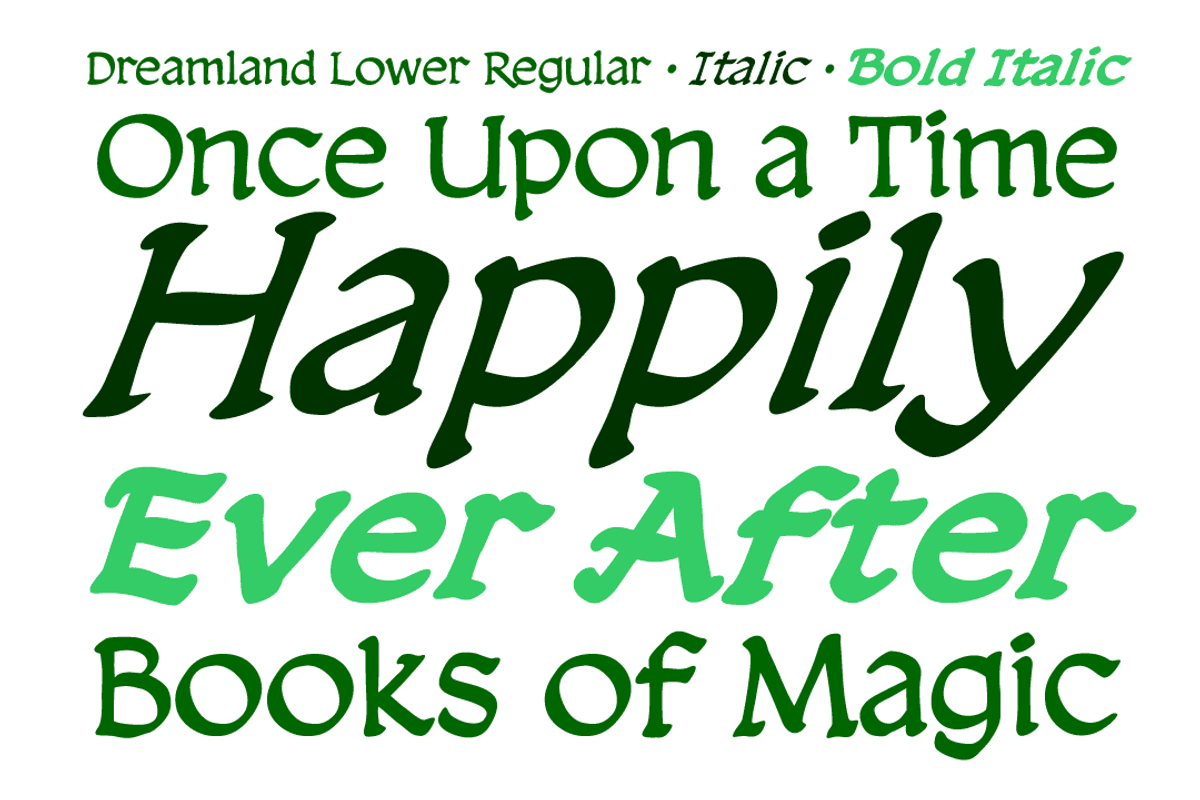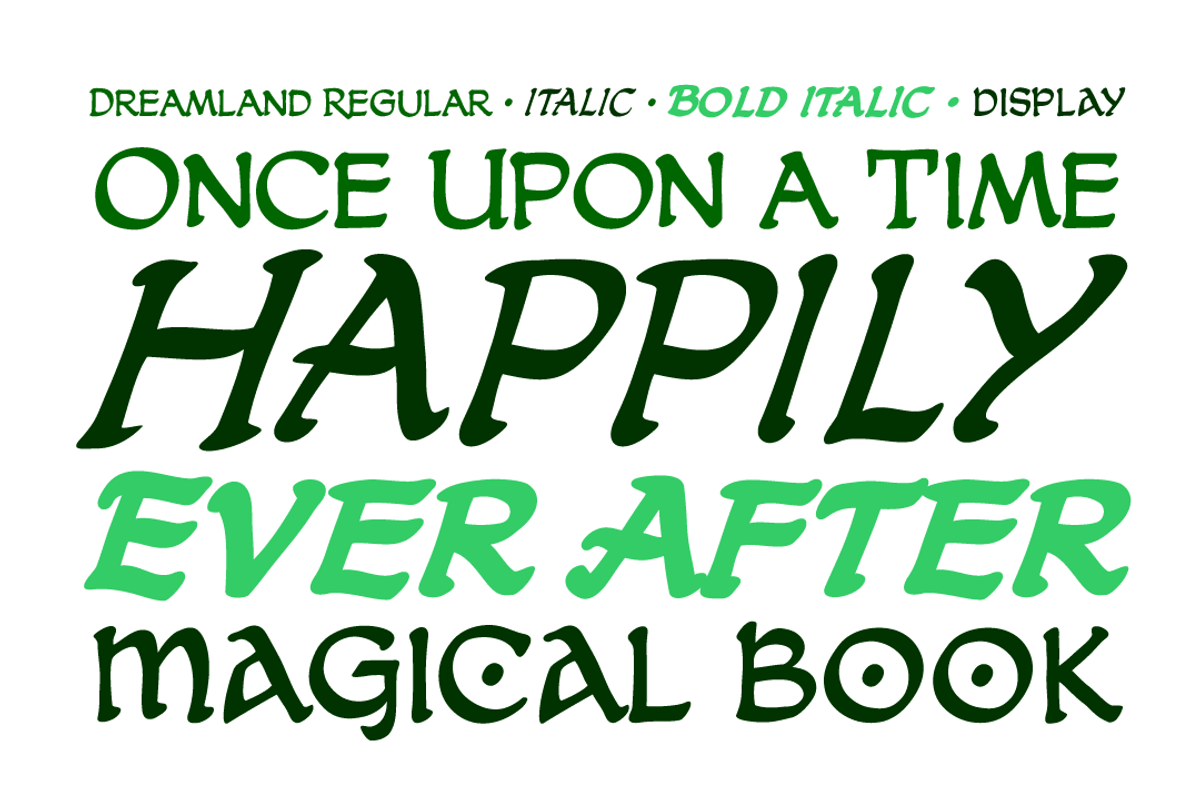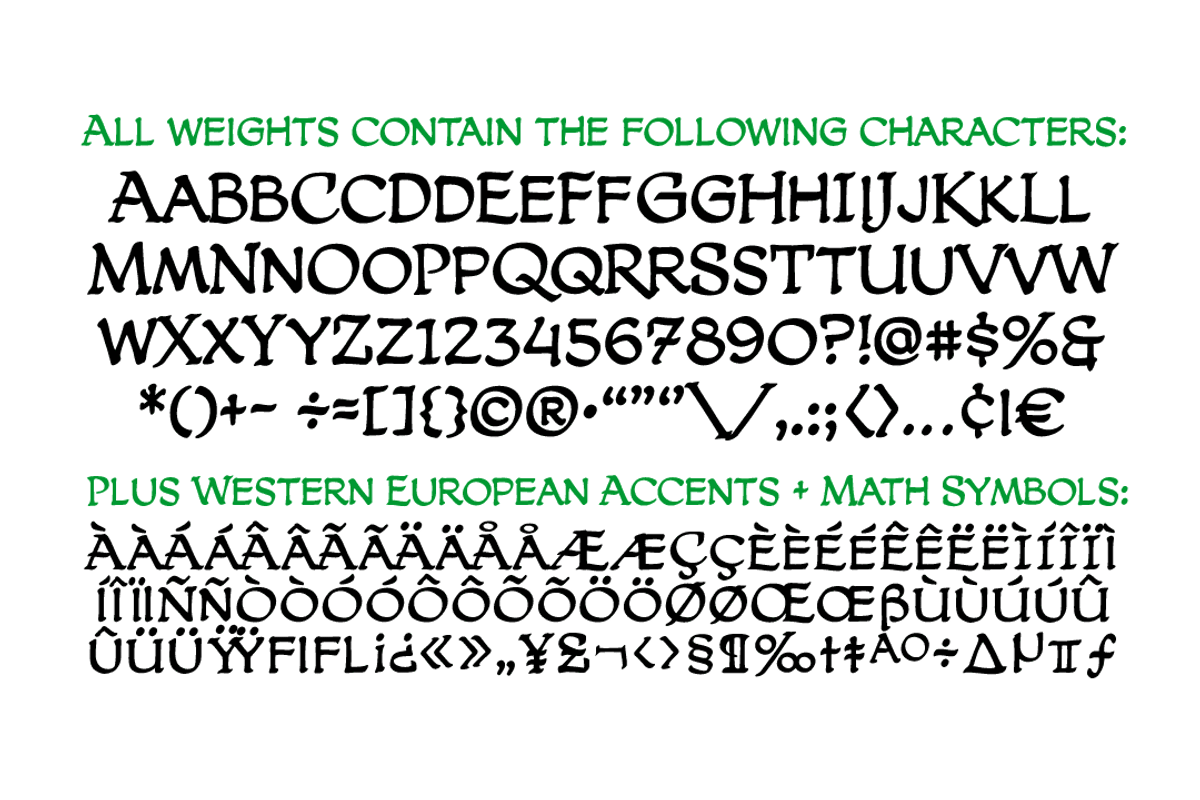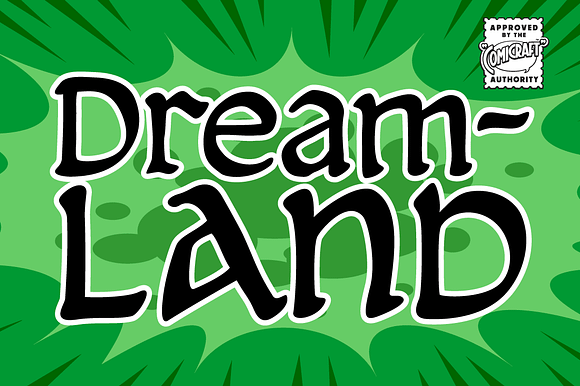
Dreamland - fantasy comic lettering
Ring-bearers across Middle Earth will be kissing their Sorceror's Stones, when they hear the news of the debut of this magickal collection of fonts, suitable for Incantations, Faerie talk, Books of Magic and fantastickal Arias.
Coincidentally the official font of Scott Sava's Dreamland Chronicles (how didja guess?), Dreamland is also suitable for any chronicles you may have of your own.